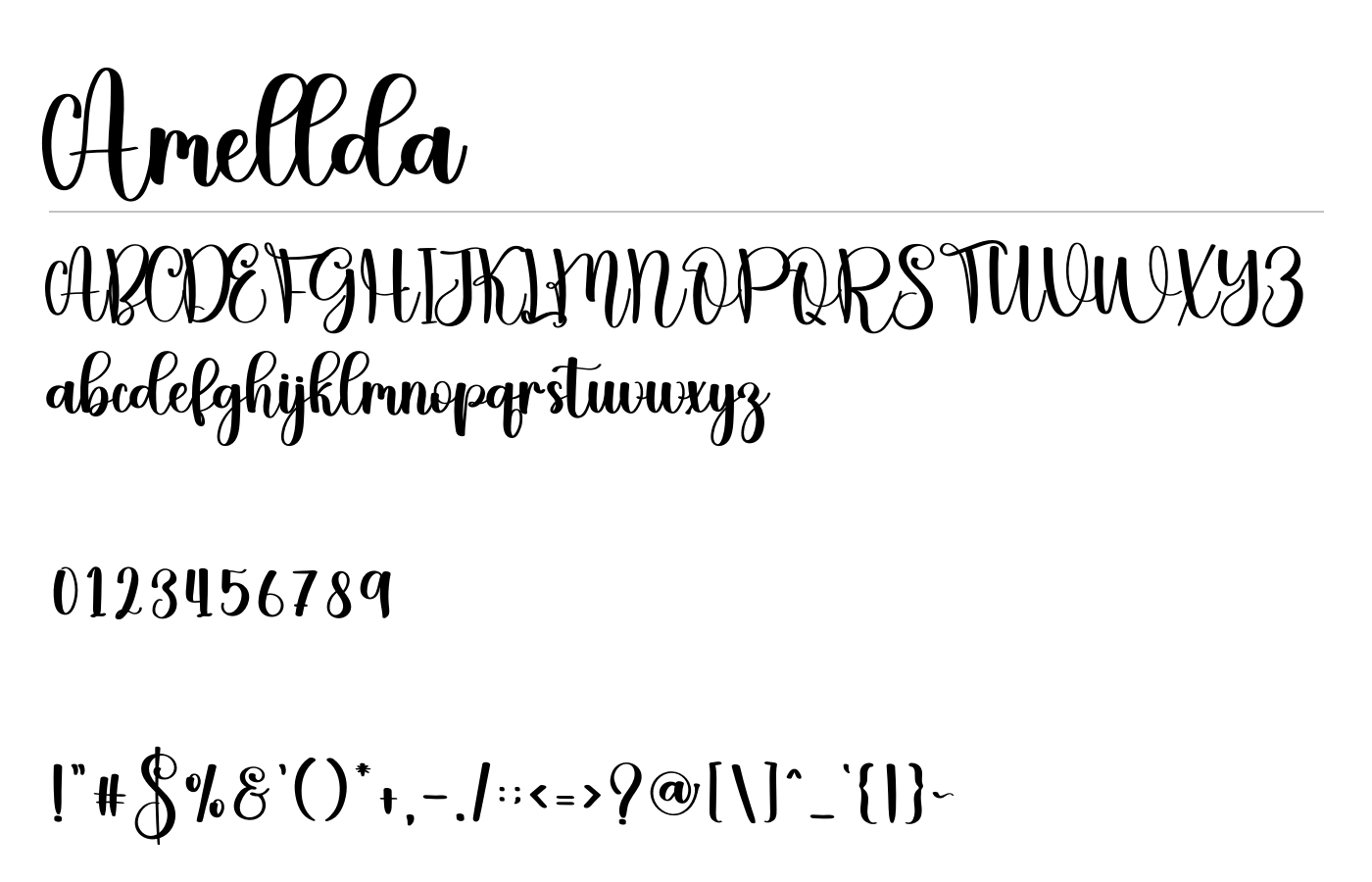
Amellda is an elegant, script-style font featuring flowing, hand-lettered uppercase letters with decorative swirls and smooth, bold lowercase characters that create a warm, inviting feel. Its tall, narrow structure and medium-heavy weight give it a modern yet playful personality, ideal for use in branding, invitations, and creative projects where a personal, stylish touch is desired. This font works beautifully in display sizes for headlines, logos, and packaging, bringing a charming and sophisticated flair to any design.
Amellda Font